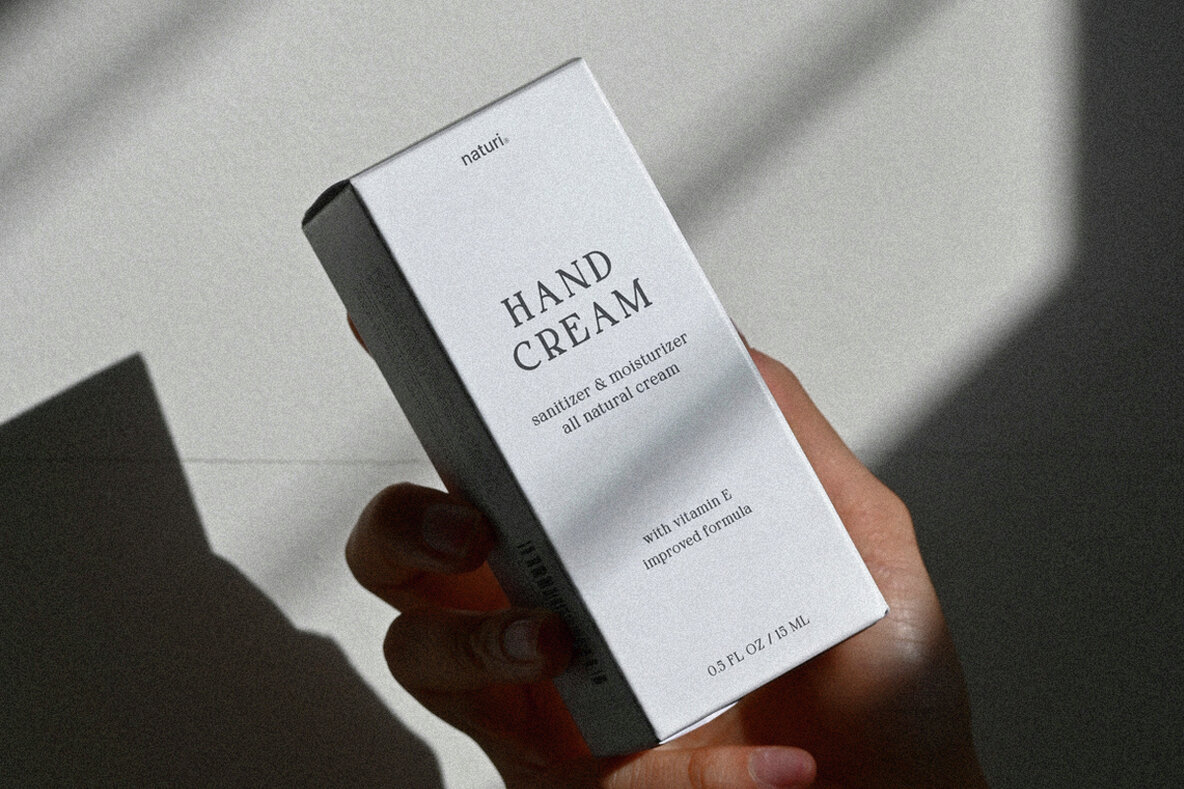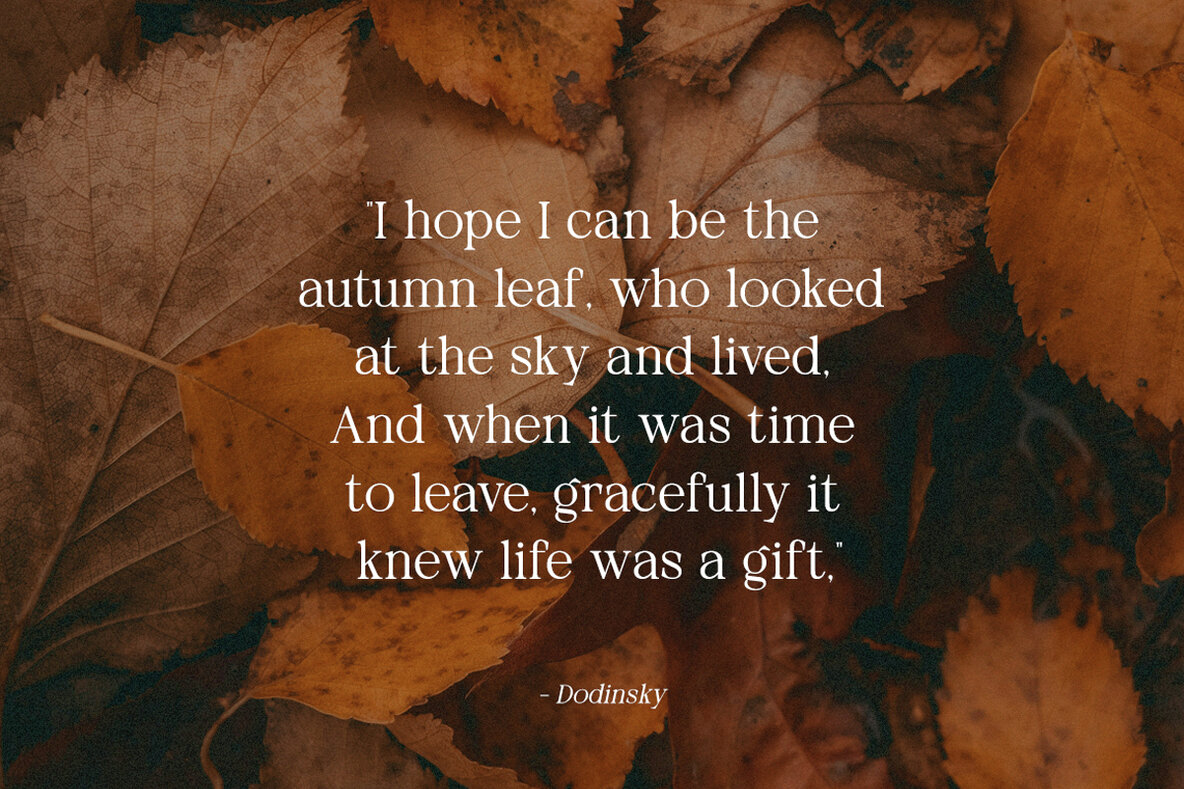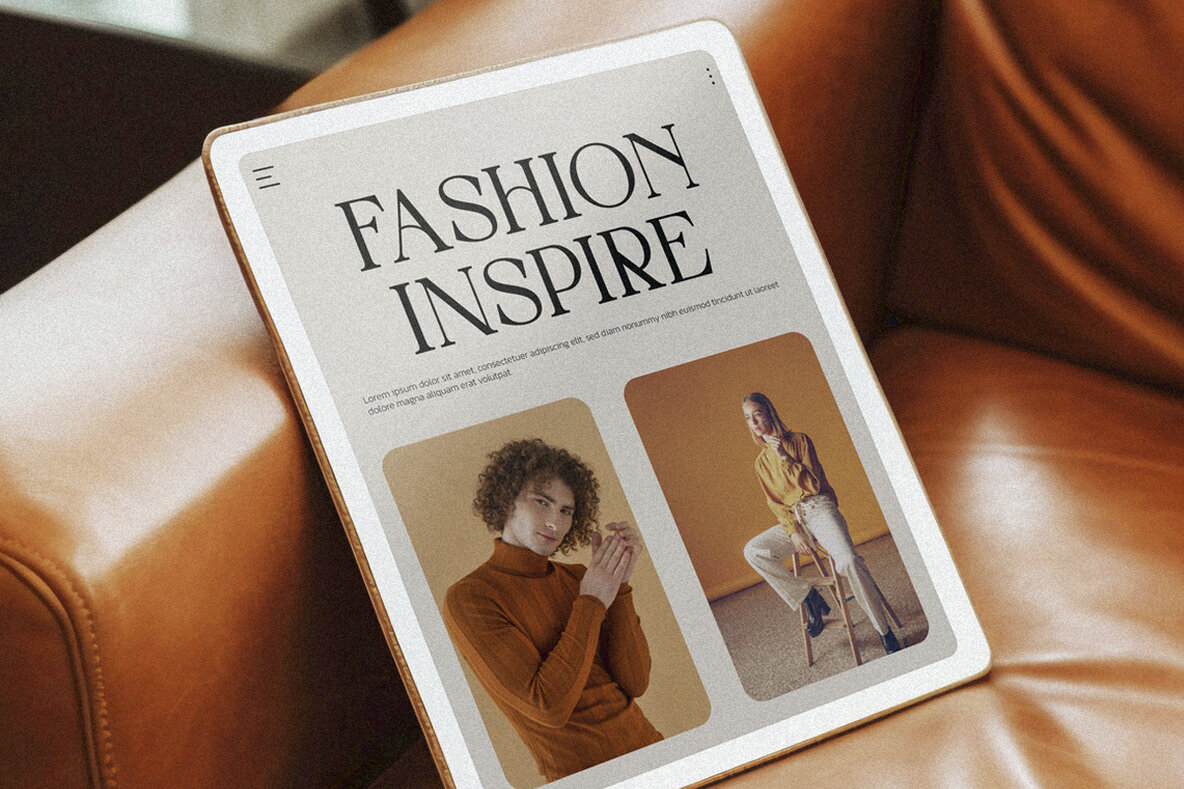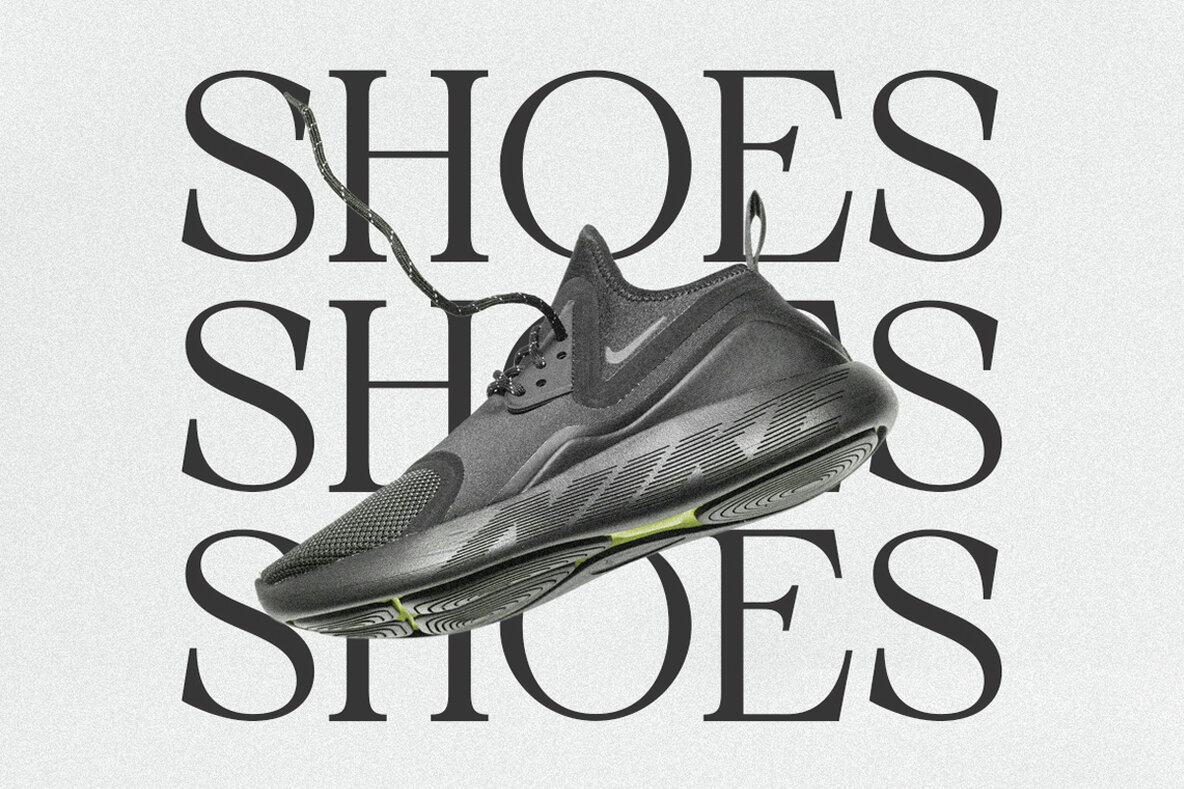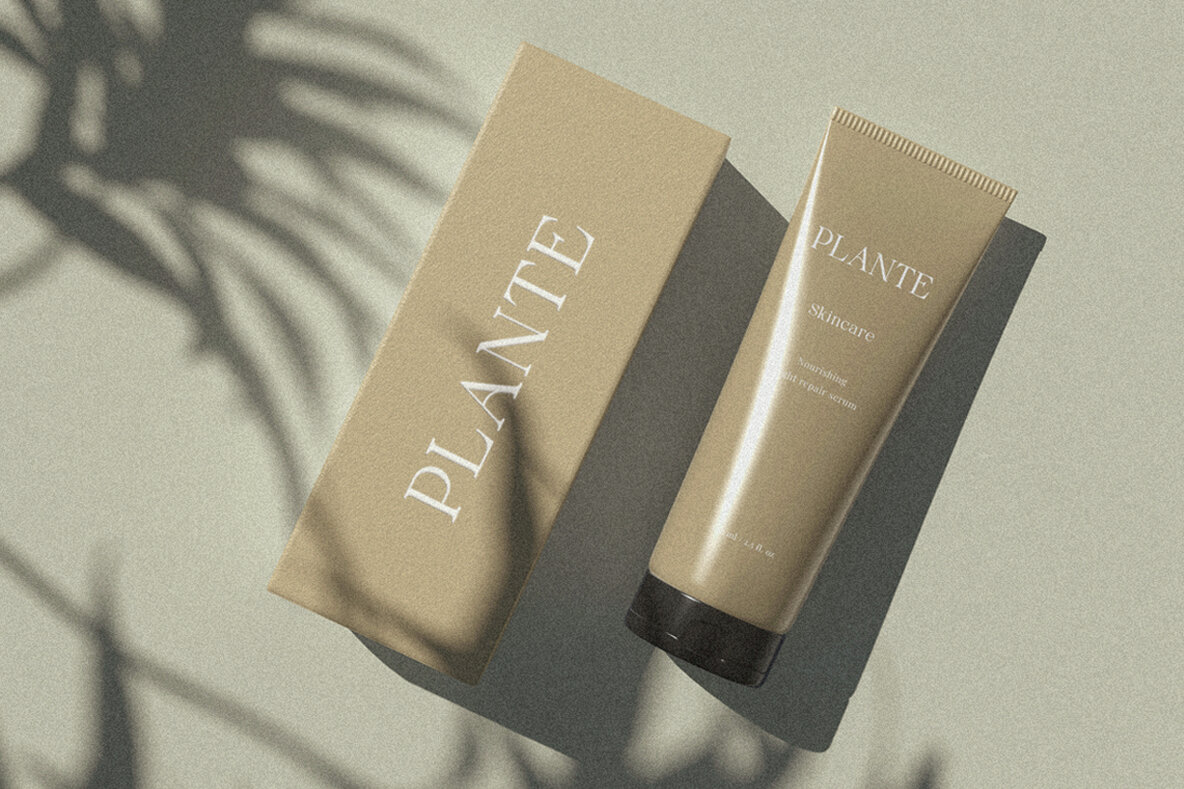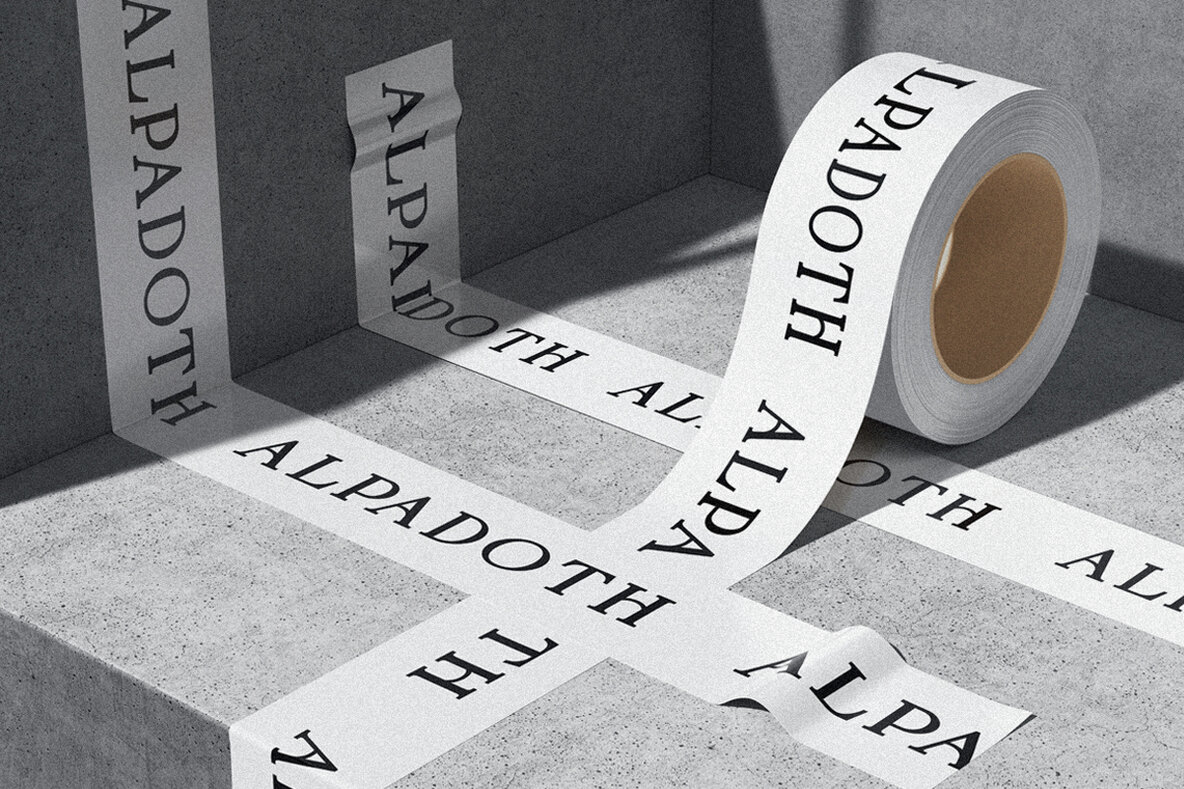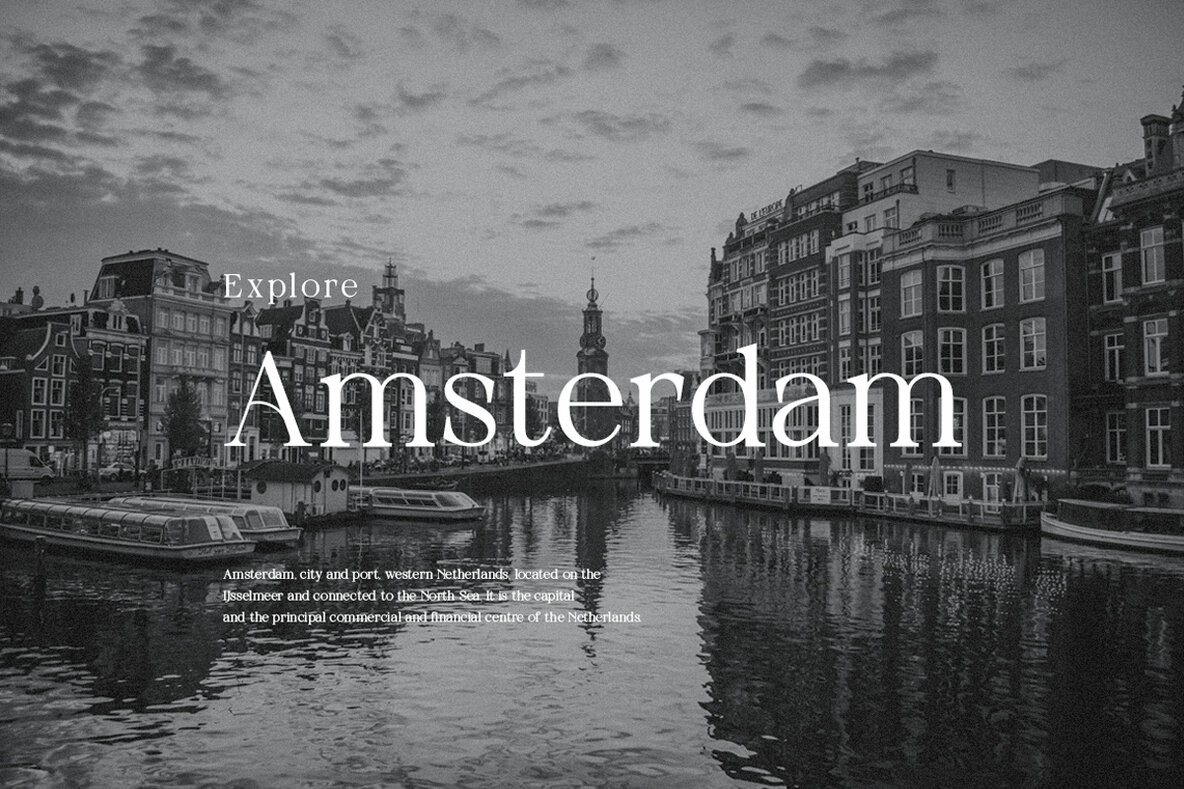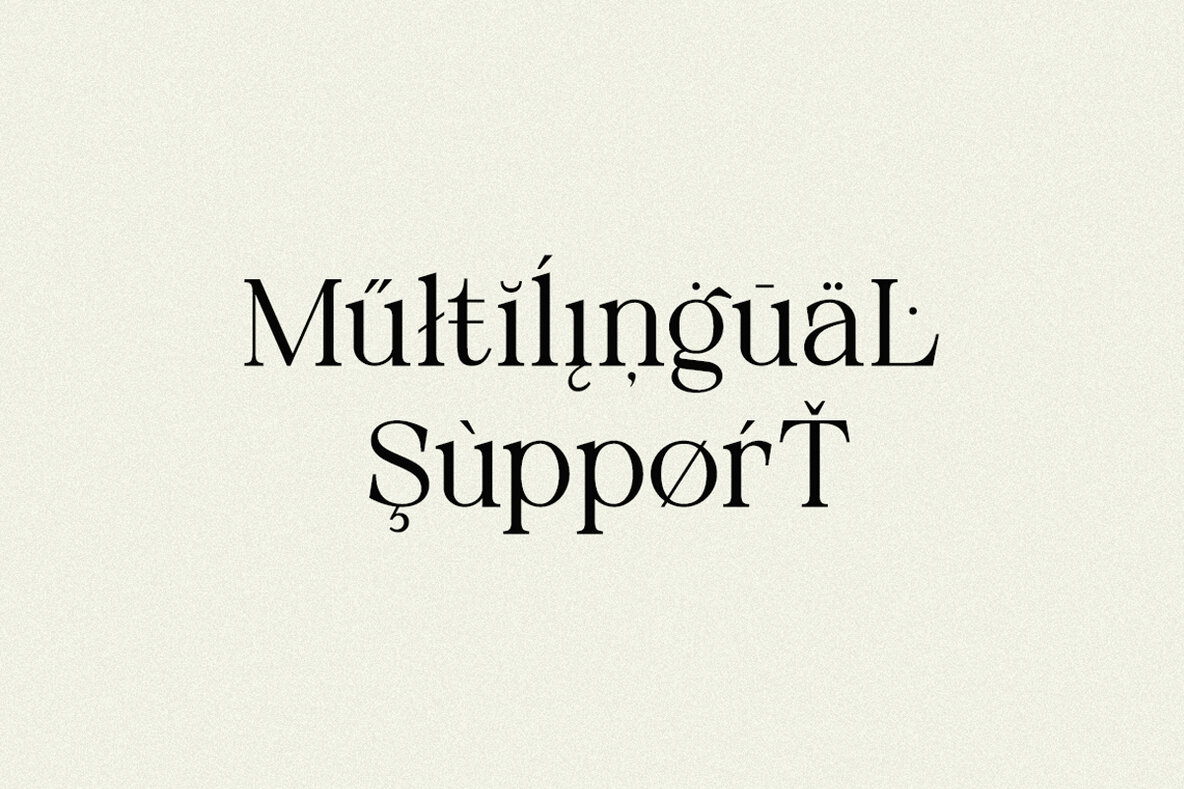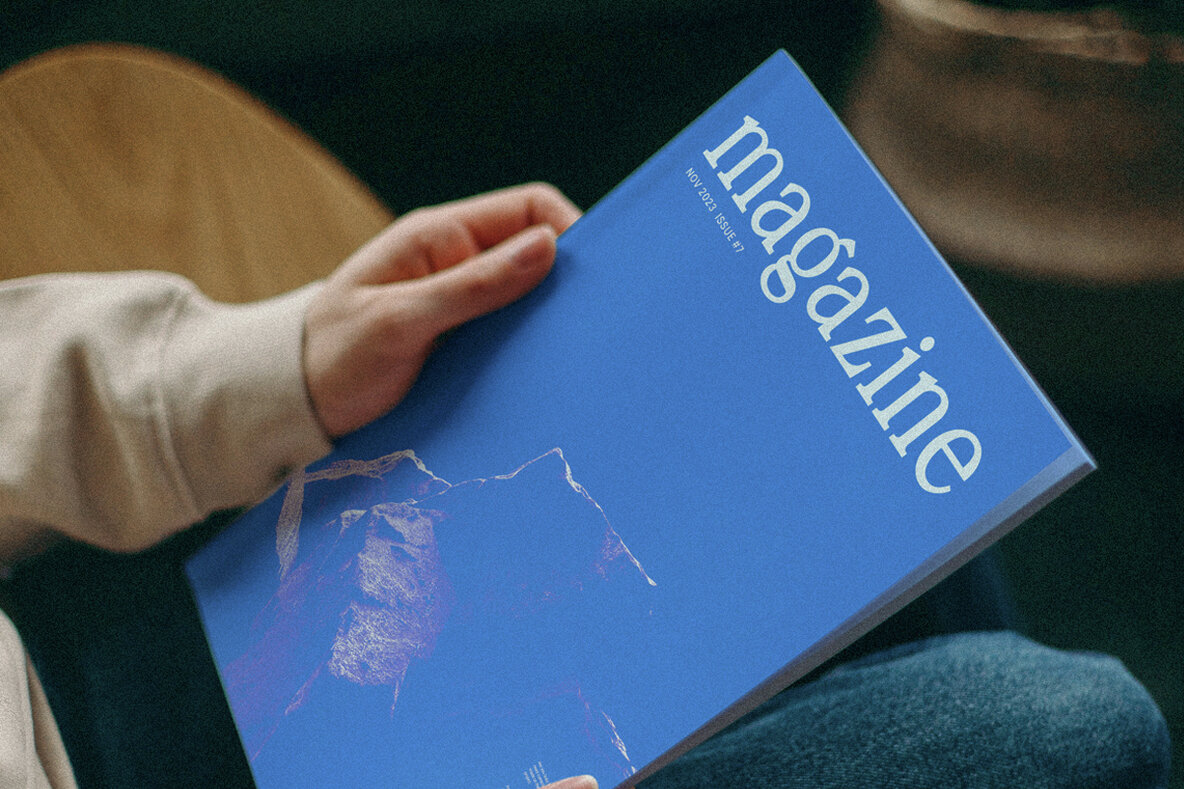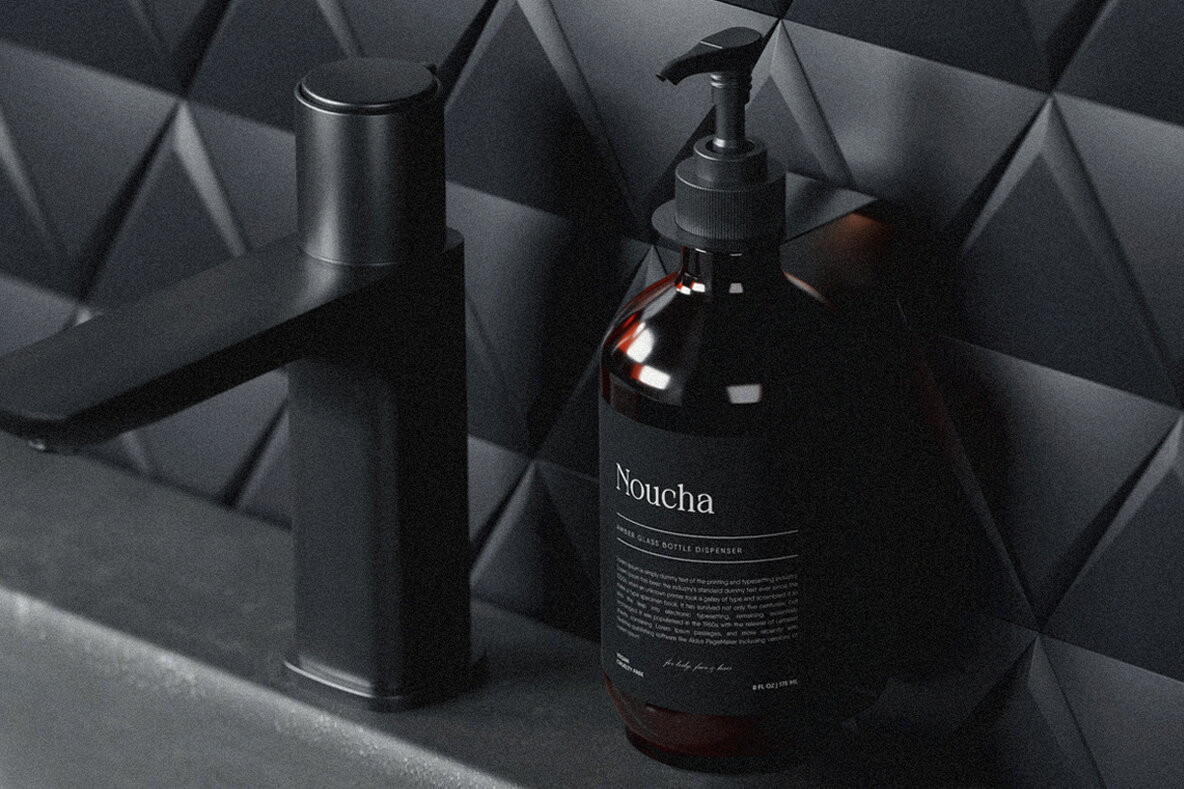
Neutical Font
Neutical is a modern serif font that blends elegance with contemporary design. Its captivating style makes it an excellent choice for crafting stunning logos, engaging headlines, and sophisticated branding materials. Whether you're designing wedding invitations or creating beautiful stationery, Neutical's refined aesthetic will enhance your projects, adding a touch of elegance and modern flair. The font's PUA encoding provides seamless access to various unique glyphs, allowing for creative versatility in any design project. This feature makes Neutical perfect for producing eye-catching social media content and much more. With its unique characteristics, this font is a valuable tool for graphic and digital designers seeking to make a lasting impression with their work.